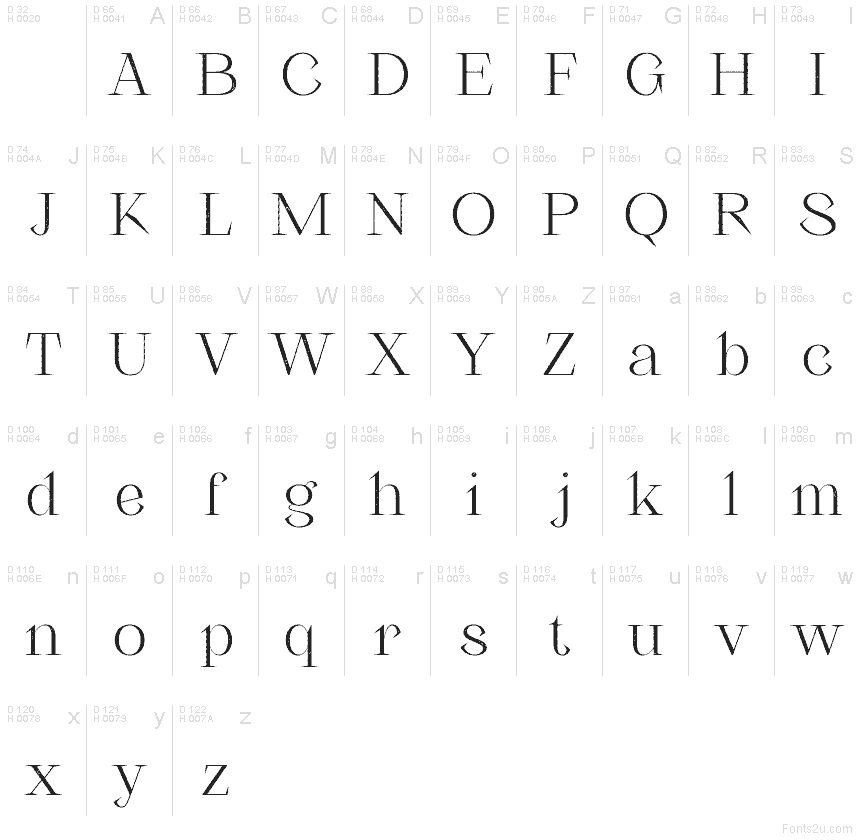
Ribka Stamp Regular Demo
Ribka Stamp font by Craft Supply Co. captures a vintage aesthetic with a weathered texture that exudes an artisanal feel. This serif font possesses an elegant appearance influenced by historical design elements, making it both captivating and timeless.
This free serif font is suitable for branding or editorial design, book covers, product packaging, advertising campaigns, brochures, art prints, signage, magazines, business cards, logos and icons. Use it to clearly transform websites and typographic posters into amazing masterpieces.